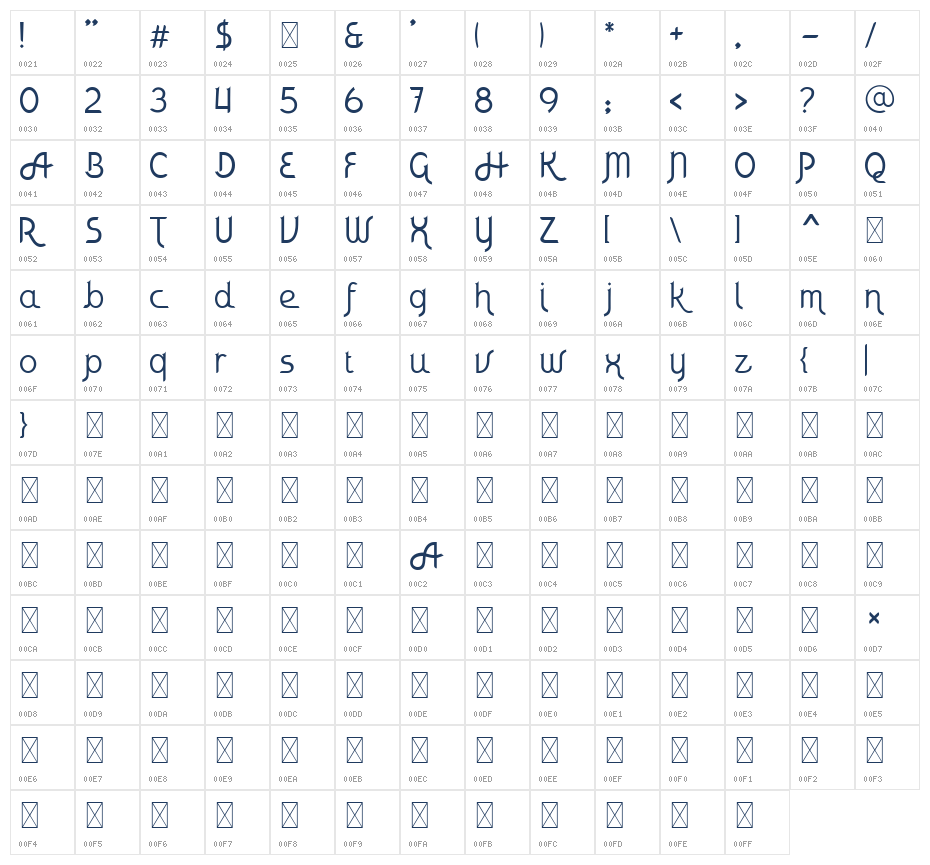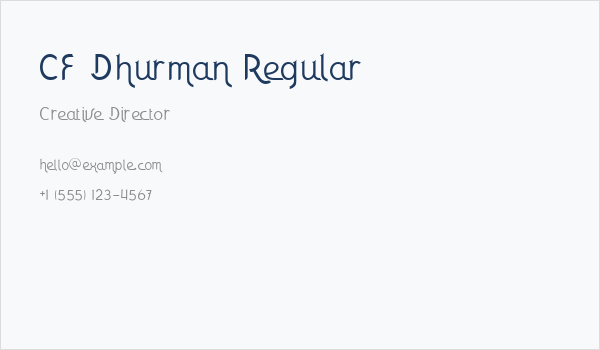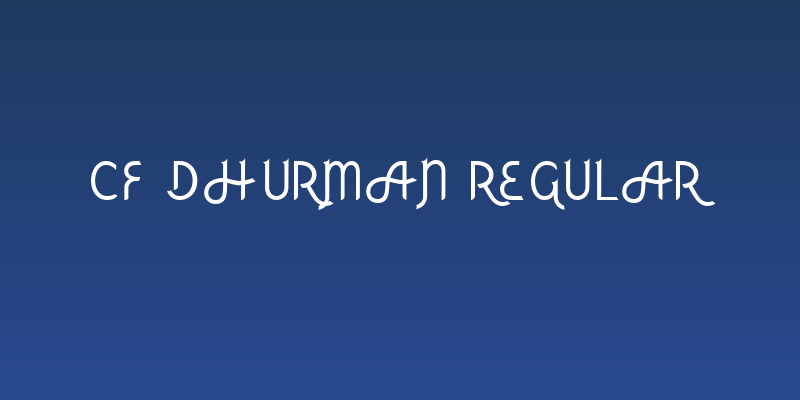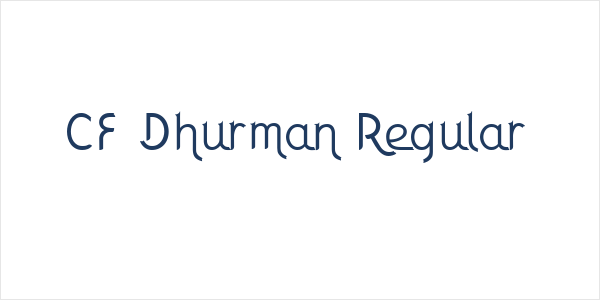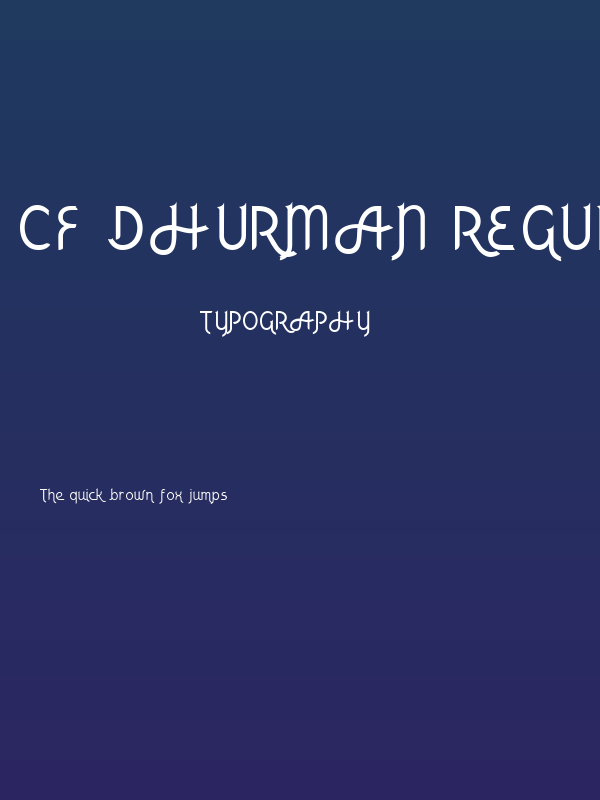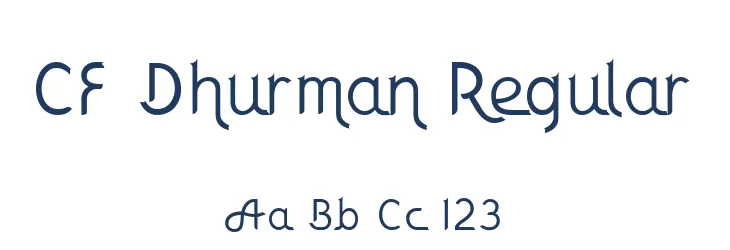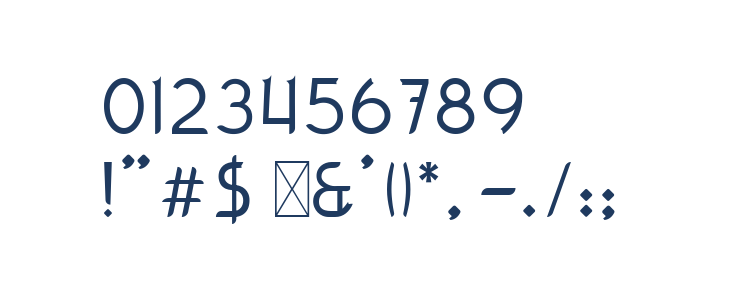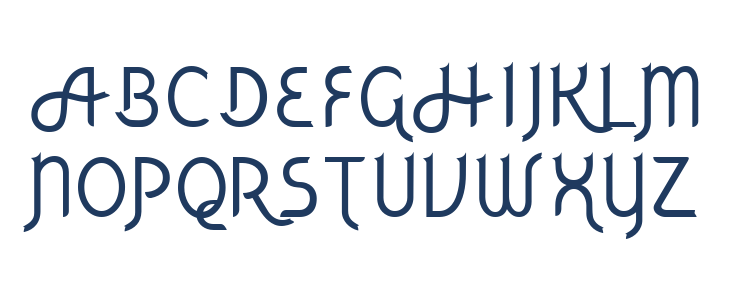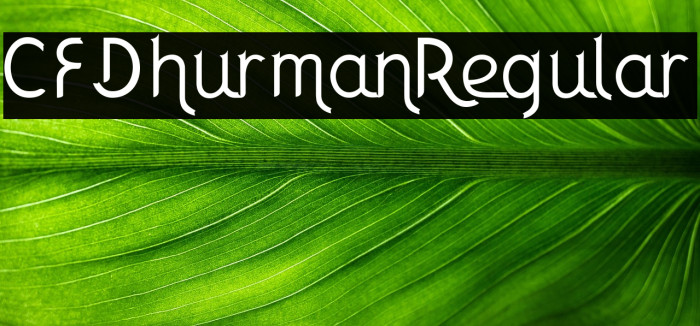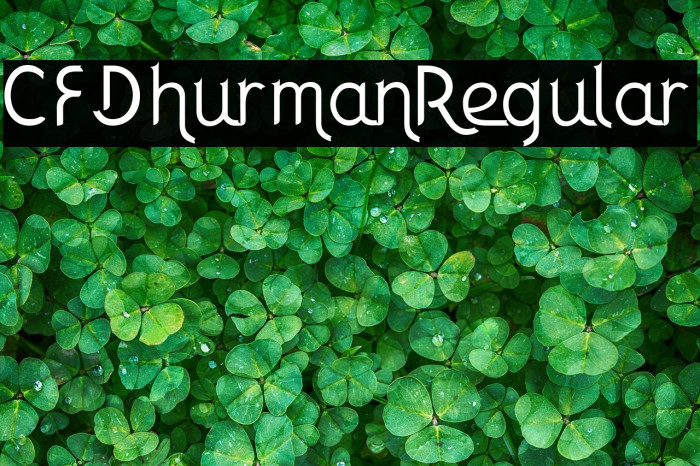
CF Dhurman Regular Font
CF Dhurman Regular Description
A decorative, whimsical serif font with unique, stylized letterforms and a playful, vintage-inspired aesthetic.
| Overall Style | Vintage, Artistic, Whimsical |
| Use Case | Headlines, Logos, Invitations, Posters |